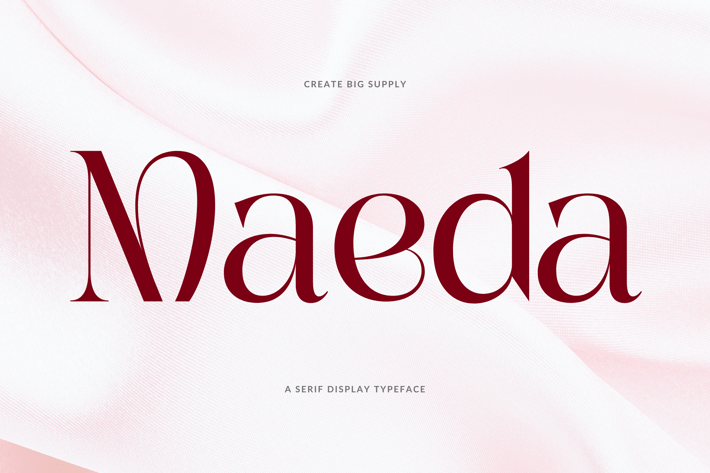
Classic Display Serif Font for Timeless Designs
Maeda is a classic display serif font inspired by traditional typography with a modern interpretation. Its strong serifs and elegant form make it ideal for branding, editorial layouts, luxury packaging, and refined headlines.
Crafted for timeless appeal, Maeda delivers both heritage and clarity in every letterform.
Key Features:
- Classic serif with vintage charm
- Strong letterforms for bold impressions
- Great for branding, books, and packaging
- Elegance suited for print and digital
- Uppercase & lowercase letters
- Numbers and punctuation
- Multilingual support
Give your design a classic, trusted look with Maeda.
Crafted for timeless appeal, Maeda delivers both heritage and clarity in every letterform.
Key Features:
- Classic serif with vintage charm
- Strong letterforms for bold impressions
- Great for branding, books, and packaging
- Elegance suited for print and digital
- Uppercase & lowercase letters
- Numbers and punctuation
- Multilingual support
Give your design a classic, trusted look with Maeda.